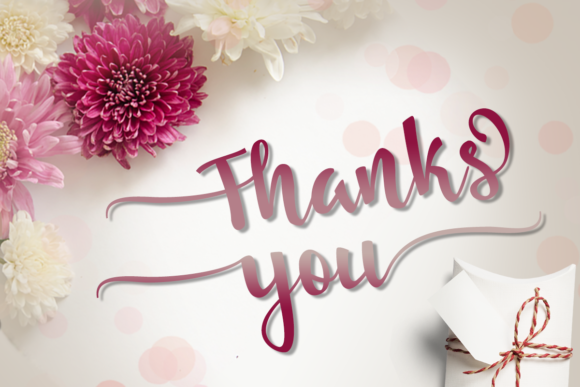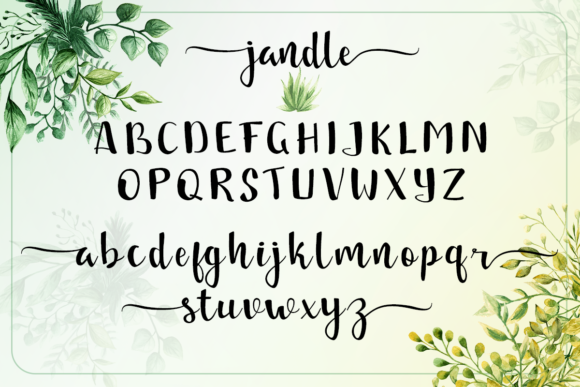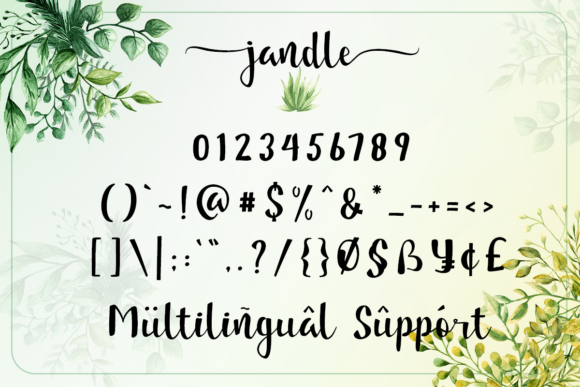
Bring a Touch of Whimsy to Your Designs with Jandle Font
Have you ever sat at your desk, staring at a blank page, trying to conjure up the perfect idea? The blank page stares back, taunting you with its emptiness. Suddenly, a spark of inspiration strikes – a beautiful handwritten font that captures the essence of a carefree summer day. For designers like you, finding that perfect font can be a game-changer.
Enter Jandle Font, a sweet and friendly handwritten font that’s full of charm. With its authentic style, Jandle Font is designed to evoke feelings of warmth and approachability. Whether you’re creating a logo, a brochure, or a social media graphic, Jandle Font adds a touch of personality to your designs.
As a valuable addition to any designer’s toolkit, Jandle Font offers a level of expressiveness that’s hard to find in more formal fonts. Its unique style and charm make it an ideal choice for designers looking to add a touch of whimsy to their work.
Jandle Font Key Features
- Unique Characteristics: Hand-drawn style with organic, cursive feel; includes ligatures and swashes for added flair
- Font Style: Script, Calligraphy, Display Font
Jandle Font Review
Overall, I have mixed feelings about the Jandle font. On one hand, it has some amazing qualities that make it a great choice for certain projects. ✨
- Unique Aesthetic: Jandle font has a distinct and quirky style that sets it apart from more common fonts. This makes it perfect for projects where you want to add a touch of personality.
- Good Legibility: Despite its unique style, Jandle is still easy to read, making it a great choice for body text or headlines.
- ⚠️ Limited Character Set: Jandle font is not a full Unicode font, which means it may not support all languages or characters.
- ⚠️ Limited Font Sizes: Jandle font looks best at larger font sizes. At smaller sizes, it can become blurry and difficult to read.
Overall, I would recommend Jandle font for projects where you want to add a unique touch, but it may not be the best choice for projects that require a wide range of font sizes or languages. With a little care and attention to detail, Jandle can be a great addition to your design toolkit.
Tips for Getting the Most Out of Jandle Font
For optimal results, use Jandle Font in combination with bold or italic styles to add emphasis and create visual interest.
Experiment with different font sizes and line spacing to achieve a balanced and readable design.
Jandle Font is suitable for various applications, including:
- Infographics and data visualization
- Print and digital marketing materials
Alternatives to “Jandle Font” for Designers
Pacifico Font is a beautiful, cursive script font that is perfect for creating elegant and sophisticated designs. It’s ideal for use in wedding invitations, branding, and packaging. Pacifico is more elegant and refined compared to Jandle Font, making it a better choice for high-end designs.
Comparison: Pacifico Font has a more refined and elegant feel compared to Jandle Font, making it a better choice for formal designs.
Great Vibes Font is a modern, cursive script font that is perfect for creating fun and playful designs. It’s ideal for use in social media graphics, posters, and advertisements. Great Vibes Font is more casual and playful compared to Jandle Font, making it a better choice for informal designs.
Comparison: Great Vibes Font has a more casual and playful feel compared to Jandle Font, making it a better choice for casual designs.
Lato Font is a modern sans-serif font that is perfect for creating clean and minimalist designs. It’s ideal for use in corporate branding, website design, and product packaging. Lato Font is more modern and clean compared to Jandle Font, making it a better choice for contemporary designs.